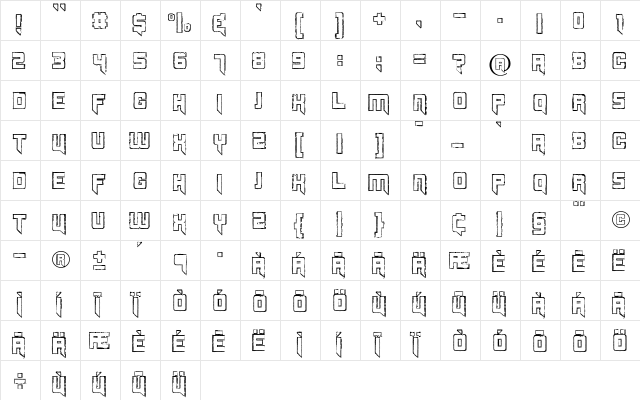
Splincide Regular
Design Context for Splincide Typeface
Splincide is a composed and adaptable typeface that performs quietly and consistently across a wide range of design contexts.